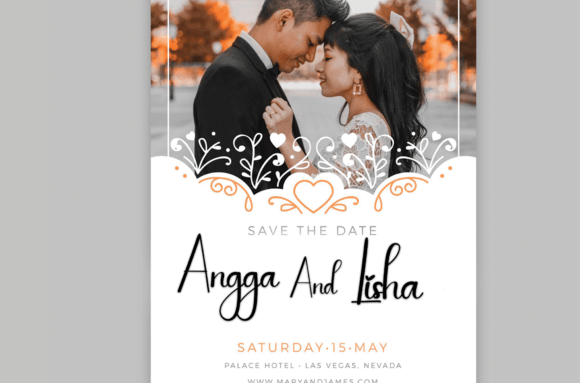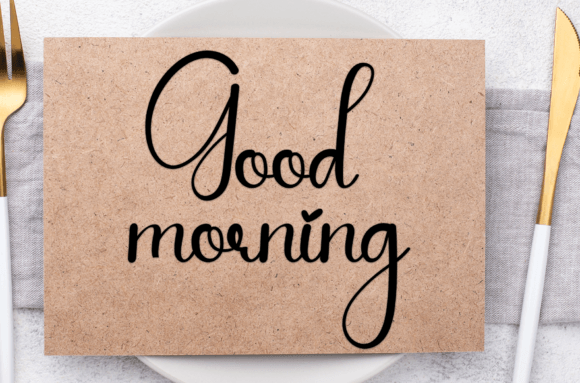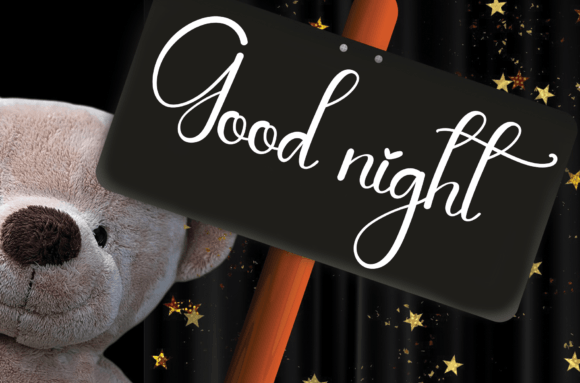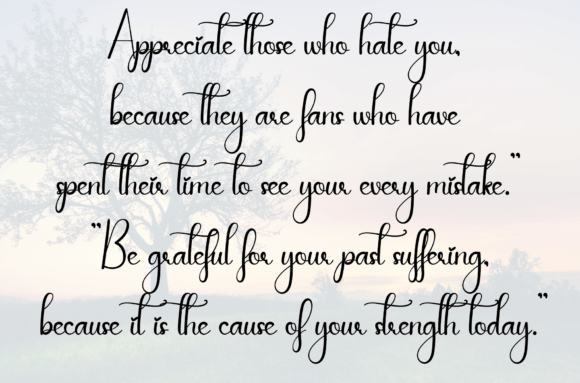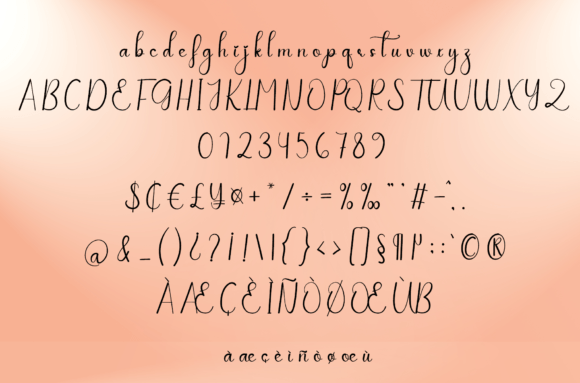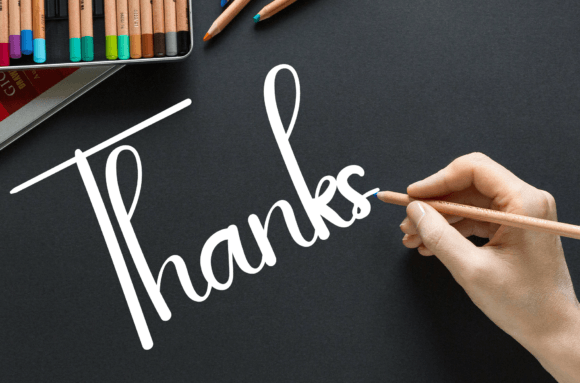
Unleash the Charm of Handwritten Typography
As a designer, there’s something magical about creating a wedding invitation or a heartfelt card that makes the recipient feel special. You want the words to dance on the page, and the font to whisper sweet nothings to the reader’s heart. This is where the Book Strong Font comes in – a delightful handwritten font that adds a personal touch to any design project.
With its friendly and relaxed vibe, the Book Strong Font is perfect for creating designs that feel warm and inviting. Whether you’re designing a wedding invitation, a birthday card, or a special message for a loved one, this font is sure to bring a smile to the reader’s face. For designers, the Book Strong Font is a valuable tool that can add a unique and creative touch to any project, making it a must-have in your typography arsenal.
Book Strong Font Key Features
- Font Family: Book Strong is a font family that includes several styles, including Book, Regular, and Bold.
- Unique Characteristics: Book Strong features a classic, elegant design with subtle flair and a warm, inviting tone, making it ideal for books, magazines, and other publications.
Book Strong Font Review
Book Strong Font is a unique, elegant font that can add a touch of sophistication to your design. ✨ Its cursive script and traditional feel make it perfect for book covers, invitations, and other formal events.
The font has a wide range of characters, including many special symbols and punctuation marks, which can be useful for designers who need to create intricate and detailed designs.
Pros: ✨
- Elegant, cursive script
- Traditional feel, suitable for formal events
- Wide range of characters, including special symbols and punctuation marks
Cons: ⚠️
- The font can be quite large, which may not be suitable for smaller designs or text-heavy layouts
- Some characters may not be perfectly legible, especially at smaller font sizes
- The font may not be suitable for modern or minimalist designs, as it has a more traditional feel
Overall, Book Strong Font is a solid choice for designers who need a elegant, cursive font for formal events or book covers. However, it may not be the best choice for more modern or text-heavy designs.
Book Strong Font is ideal for creating elegant and sophisticated designs in Canva.
Tips for Getting the Most Out of Book Strong Font
Use Book Strong Font for titles, headings, and body text to create a cohesive and sophisticated design.
Combine Book Strong Font with other elegant fonts to create a unique and eye-catching design.
Experiment with different font sizes and styles to add depth and visual interest to your design.